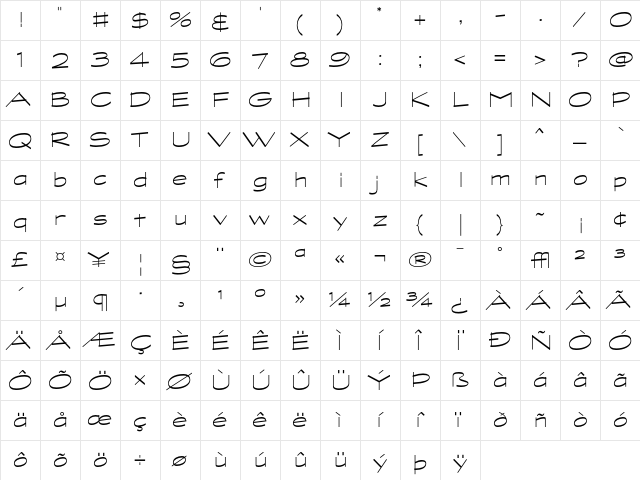
Graphite LightExtended
Design Context for Graphite Typeface
Graphite takes a measured approach to typography — its balanced proportions and neutral character make it a reliable workhorse for both digital and print work. Its slender proportions lend an understated elegance to any composition.